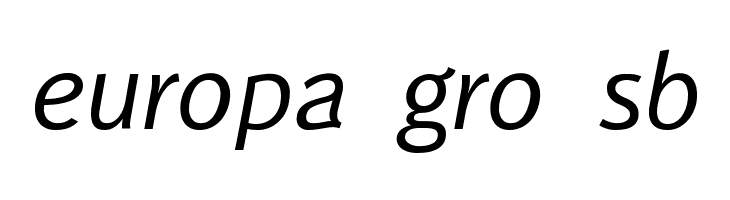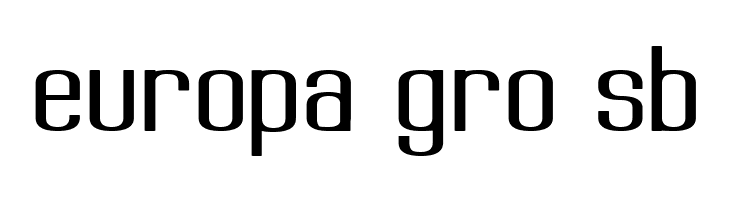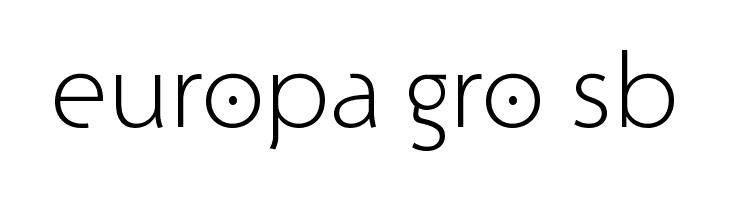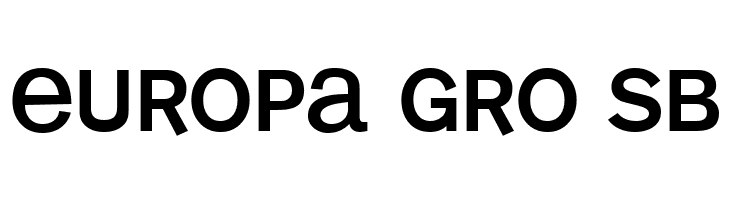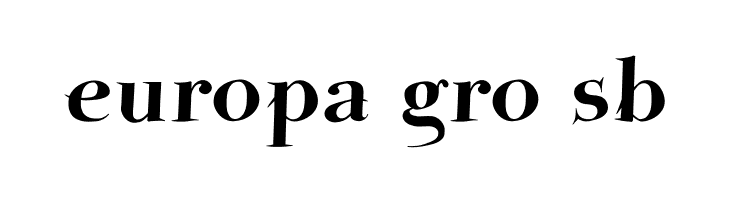
( Fonts by Ingo Zimmermann - www.ingofonts.com )
A modern, italic sans-serif font with clean lines and a dynamic appearance.
A sleek, elegant italic font with smooth curves and a modern aesthetic.
( Fonts by Derek Gomez )
A modern, clean sans-serif typeface with consistent stroke width and slightly condensed characters.
A bold, superwide font with a modern and uniform design.
A modern sans-serif font with geometric influences and consistent stroke width.
A sleek, ultra-condensed font with tall, narrow letterforms for a modern aesthetic.
A modern, geometric sans-serif font with uniform stroke width and excellent readability.
( Fonts by Dustin Norlander - www.cheapskatefonts.com )
An elegant italic serif font with flowing curves and refined style.
A bold, dynamic serif font with elegant curves and sharp serifs.